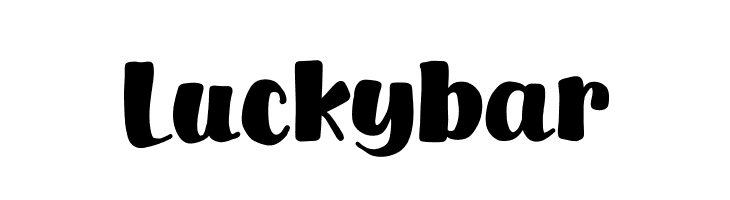
A playful, casual handwritten font with smooth, flowing lines.
A playful, handwritten-style font with dynamic strokes.
A playful, bold handwritten font with smooth curves and rounded edges.
A playful, bold font with rounded edges and consistent thickness.
A playful, hand-drawn sans-serif font with a modern and friendly appearance.
A lively, cursive script font with bold, interconnected strokes.
A bold, expressive handwritten font with brush-like strokes and dynamic flow.